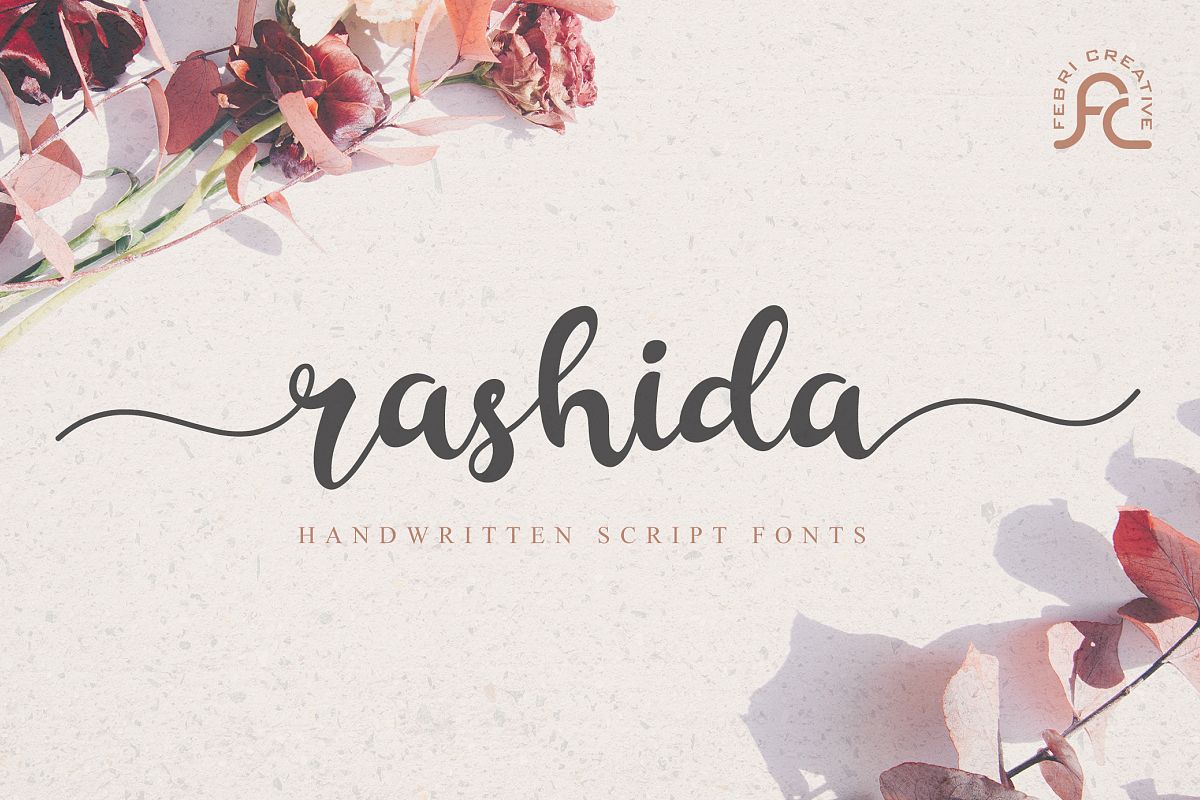
Rashida
Rashida Script
Rashida is a modern and awesome handwritten font with extraordinary charm. This will change any design idea to be beautiful and perfect! Can be used as a logo, branding, or just writing. It supports multilingual languages, which you can combine into great designs.
Multilingual support